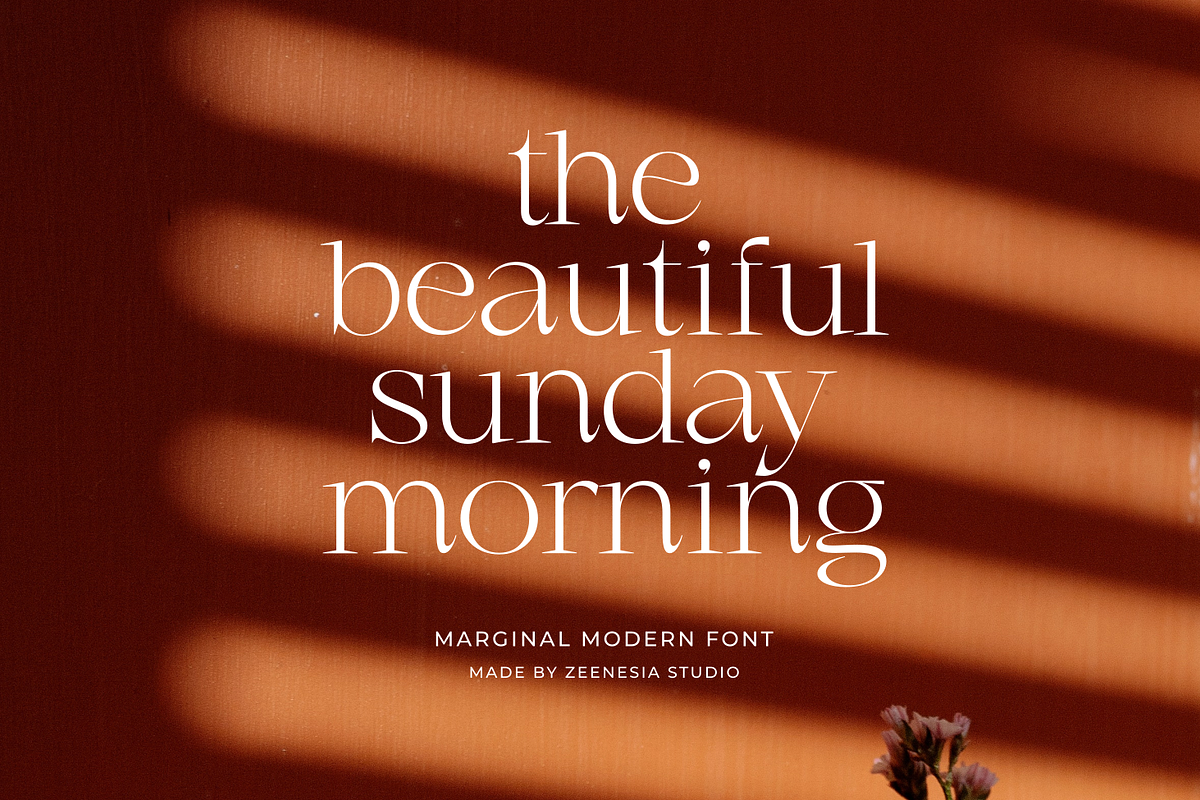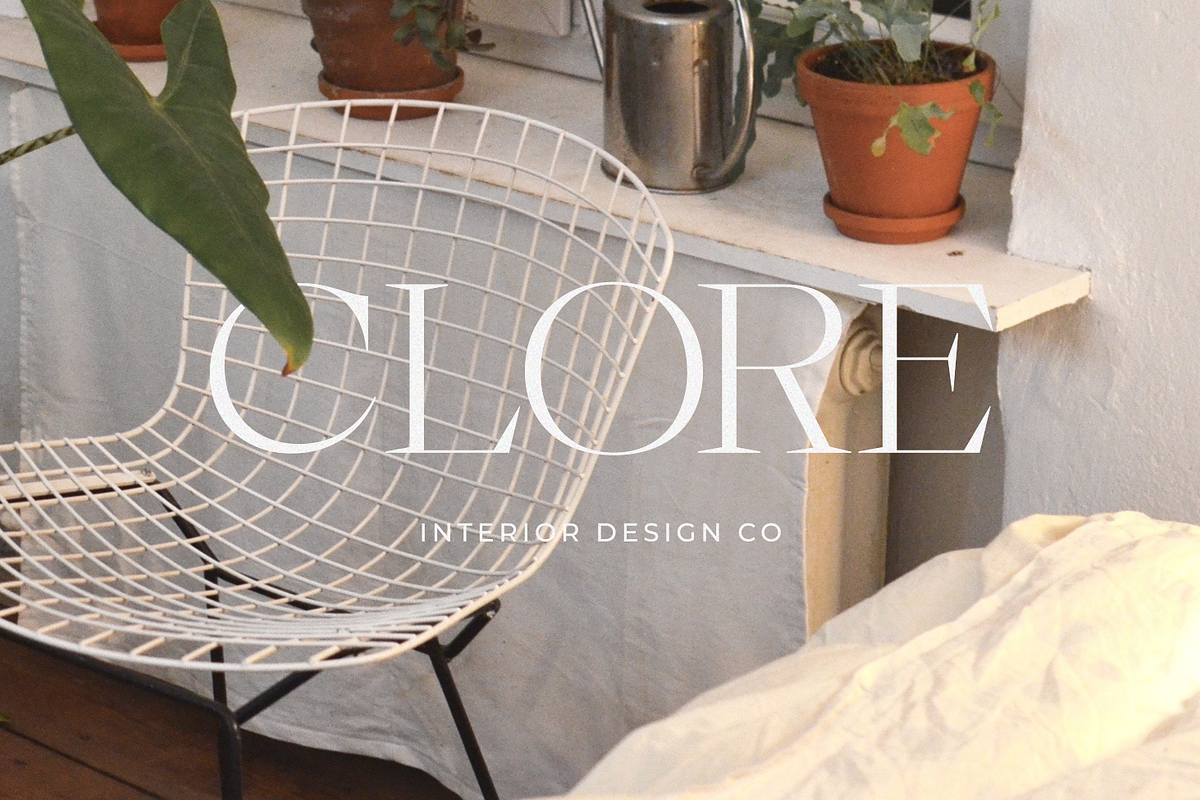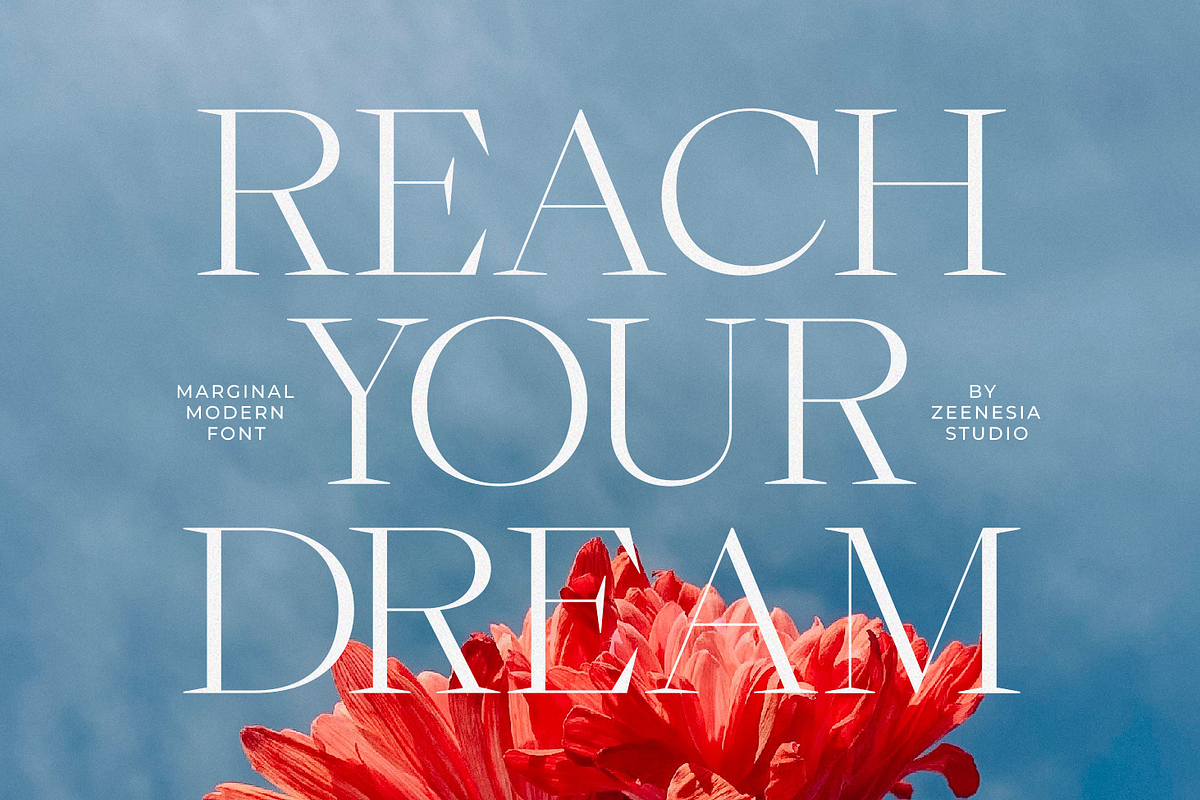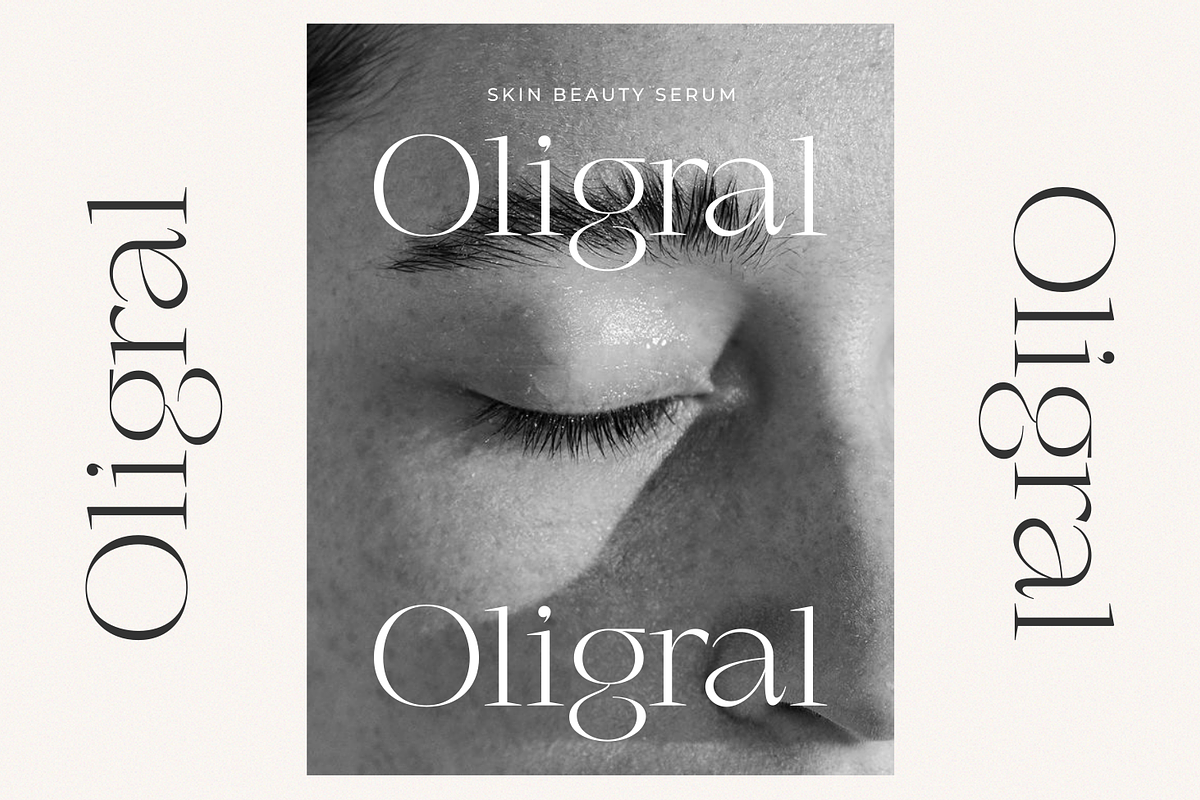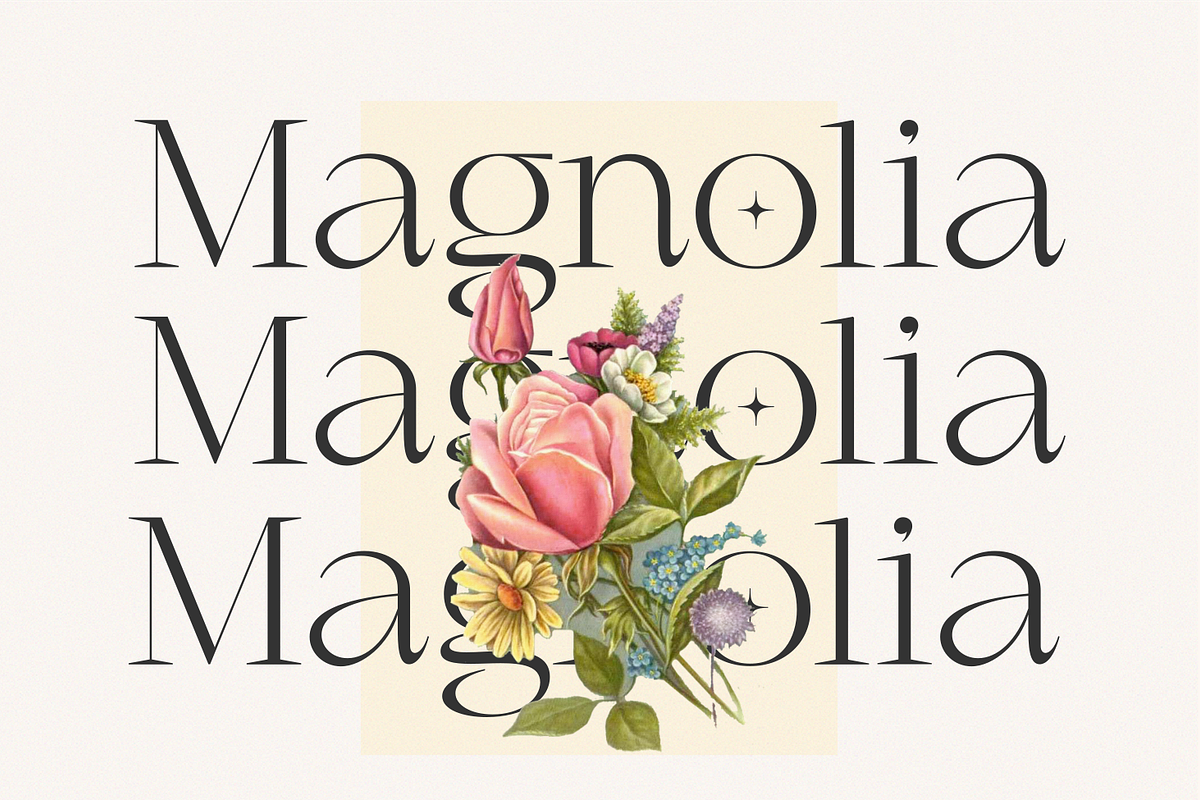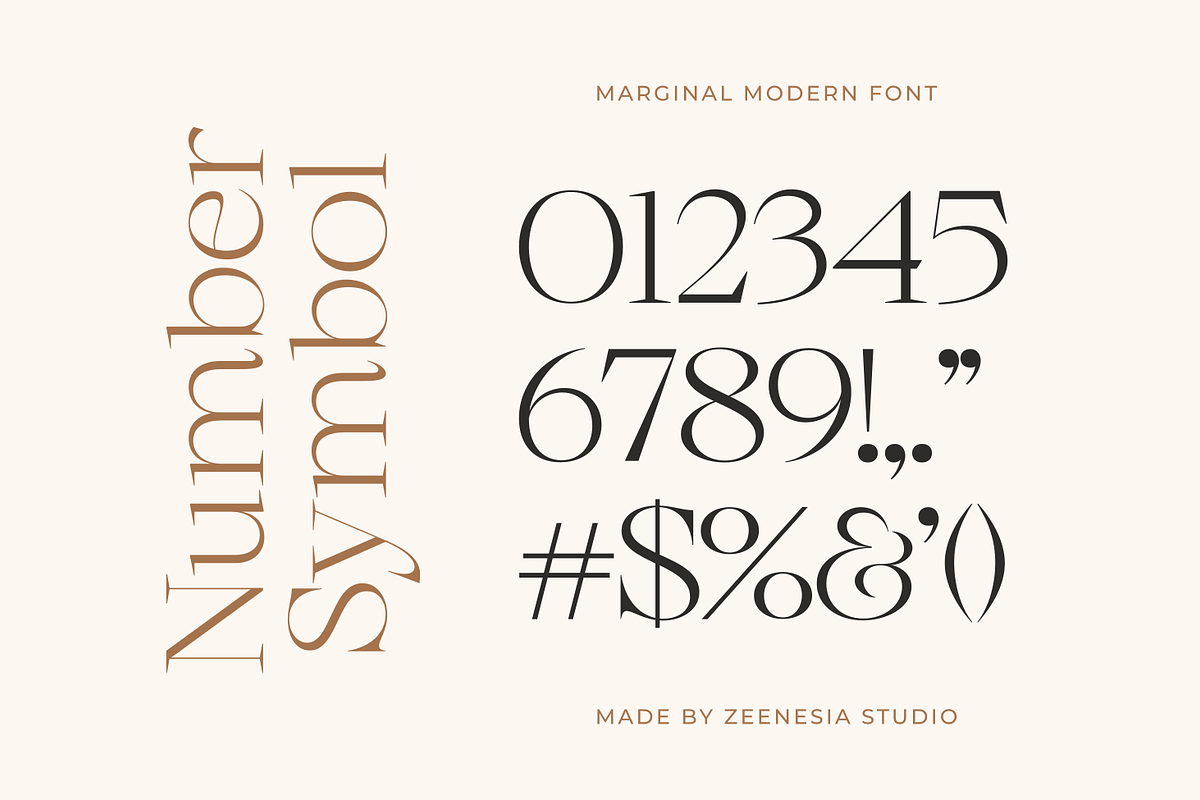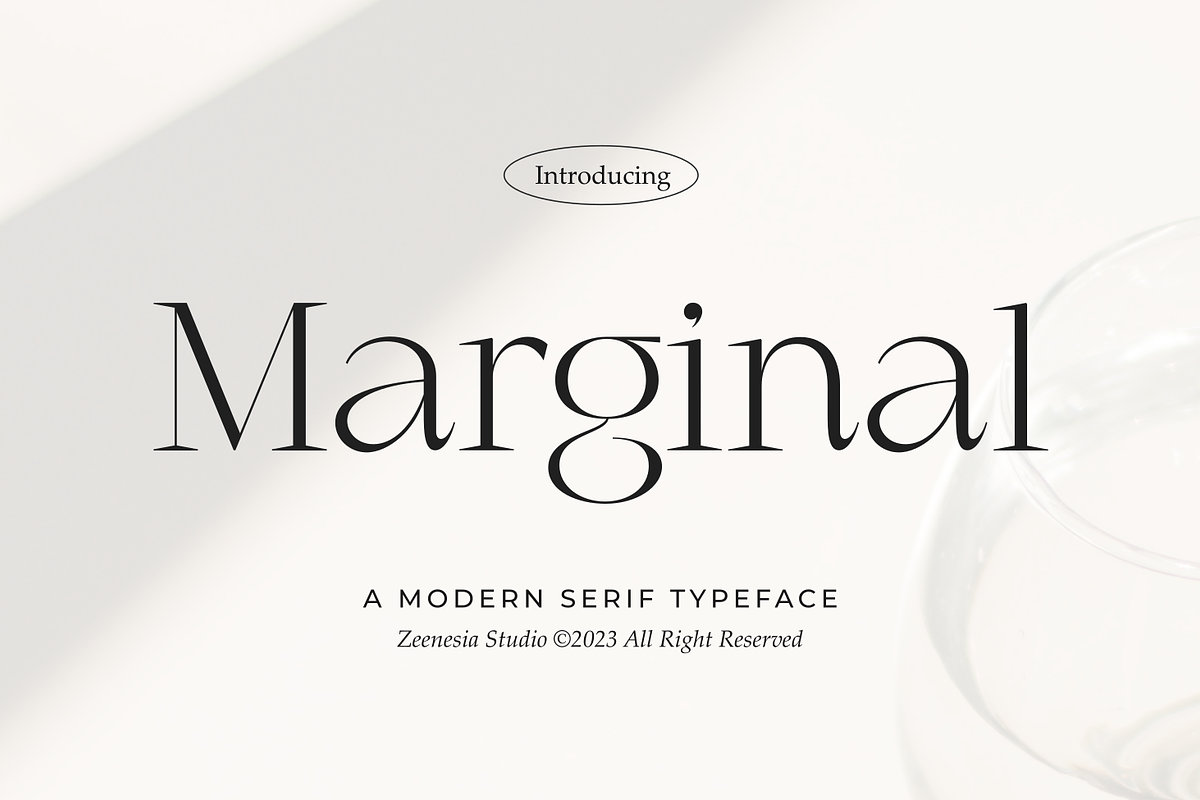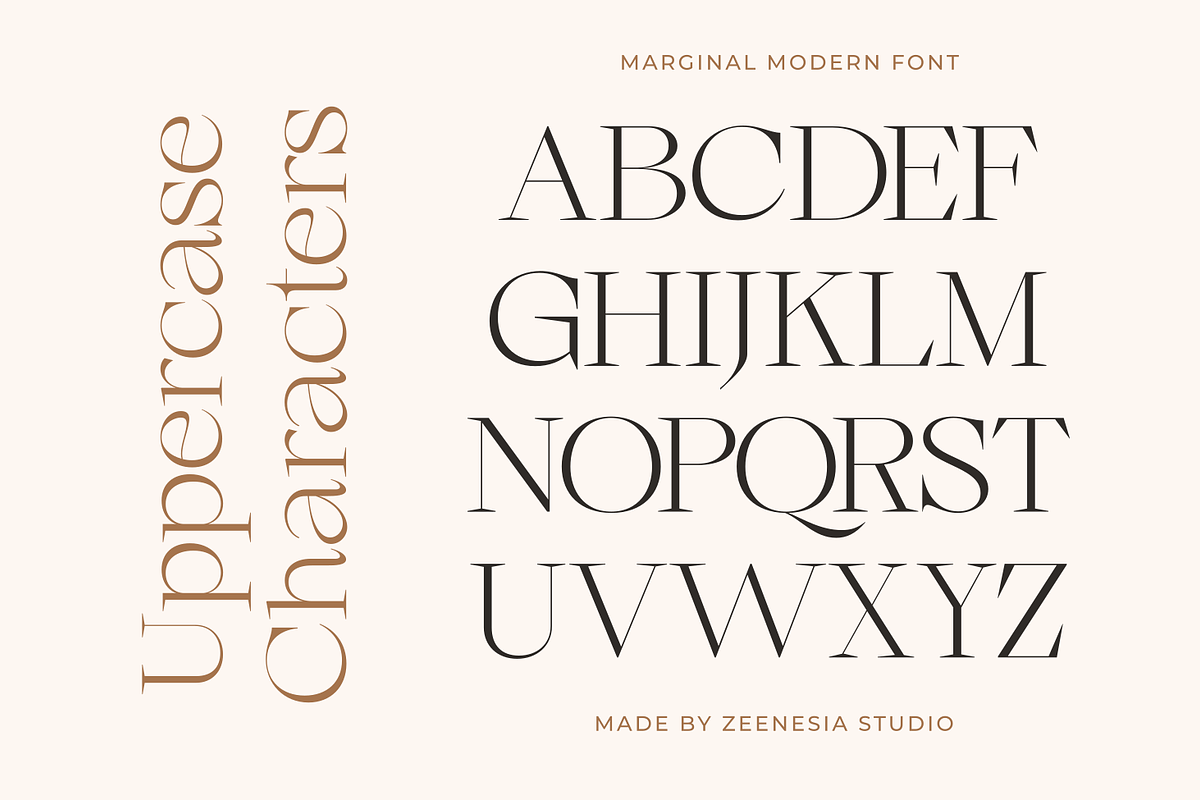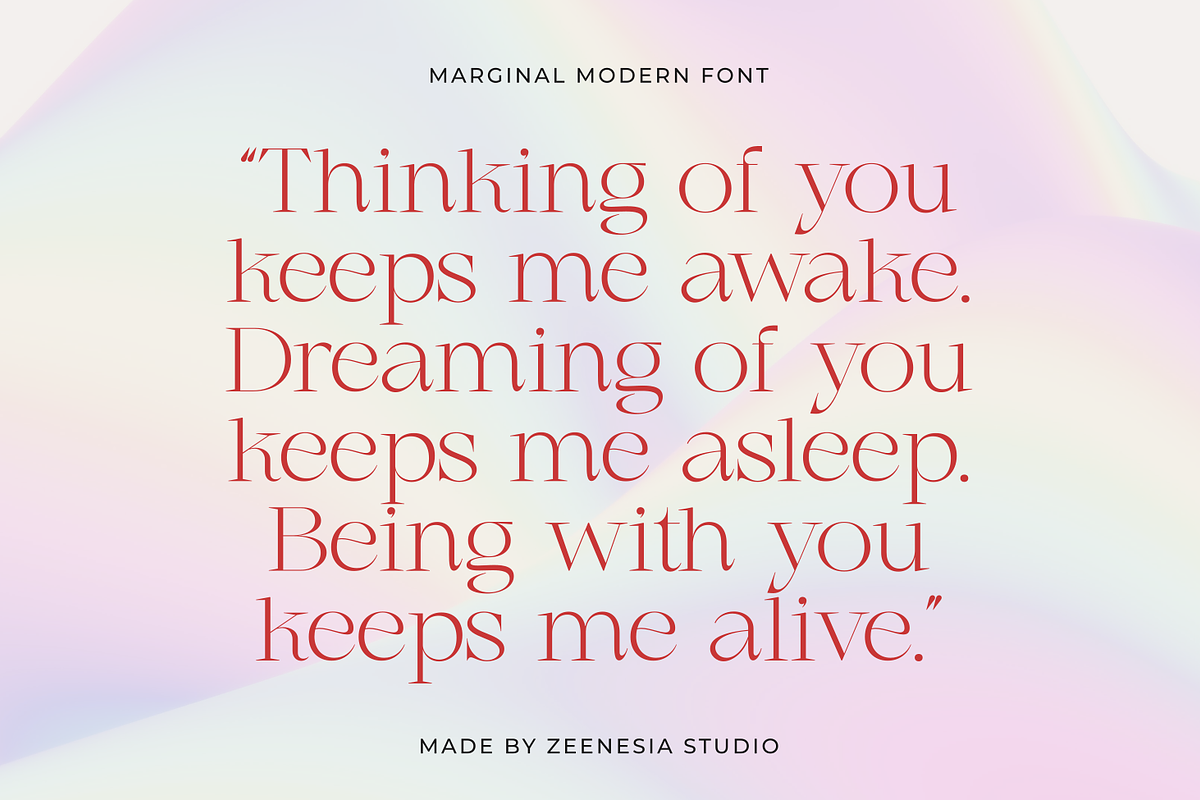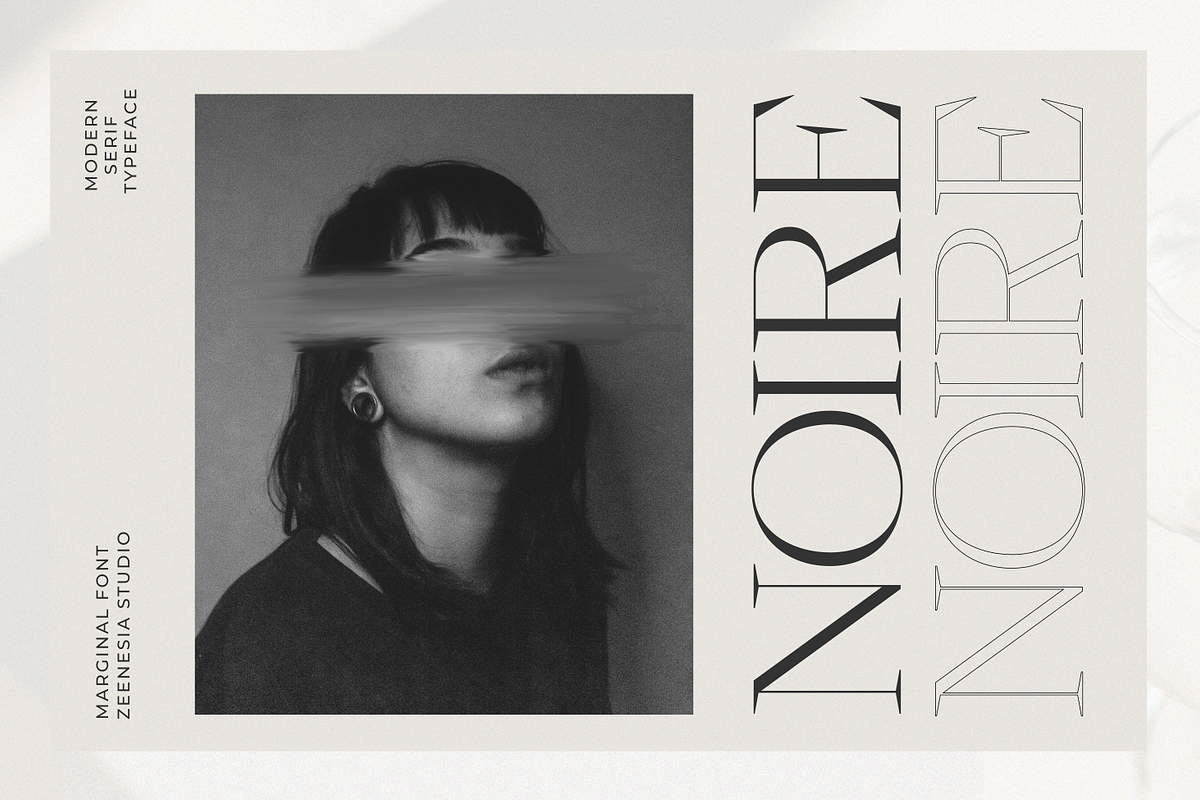
Marginal - A Modern Font
Introducing Marginal is a elegant display font with serif style. It's modern and classic font with a unique and deference look . Perfect if you need a dose of fun in your project. Perfect for editorial projects, Logo design, web font, clothing branding, product packaging, magazine headers, or simply as a stylish text overlay to any background image.